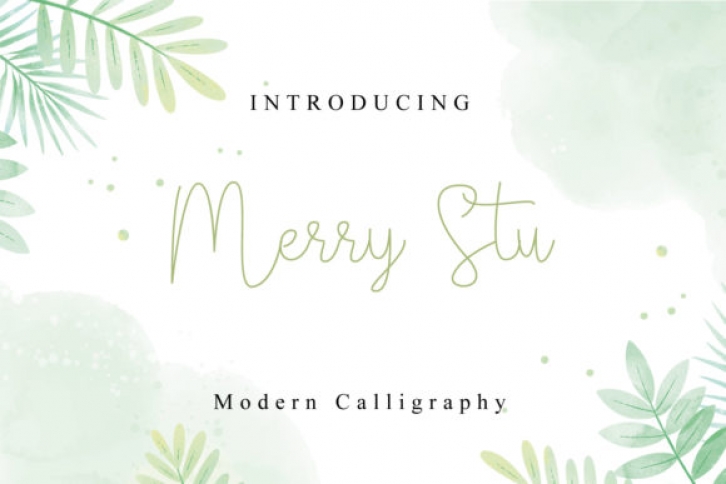
Merry Stu is a delicate and thin lettered handwritten font. It has beautiful and well balanced characters and as a result, it matches a wide pool of designs. Add it to your most creative ideas and notice how it makes them come alive!